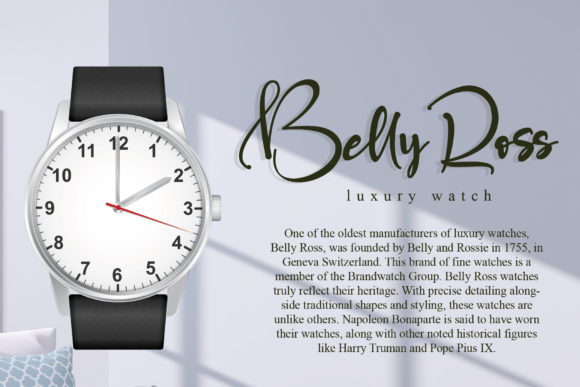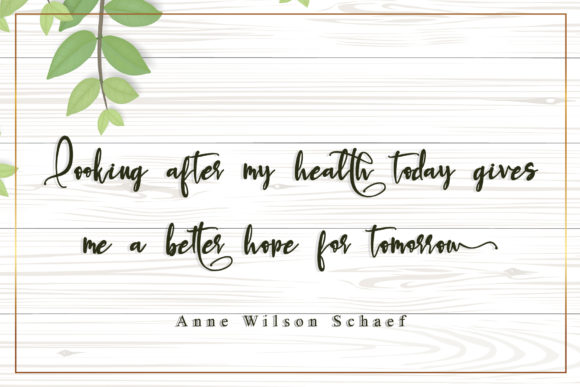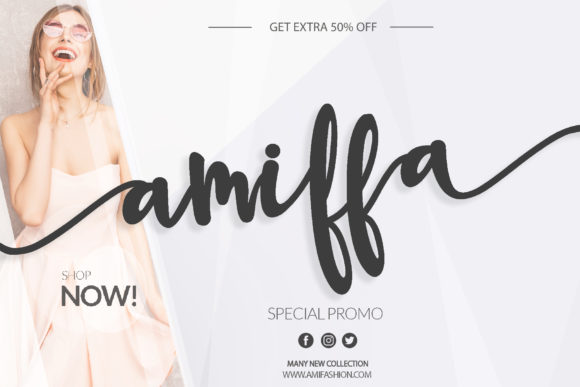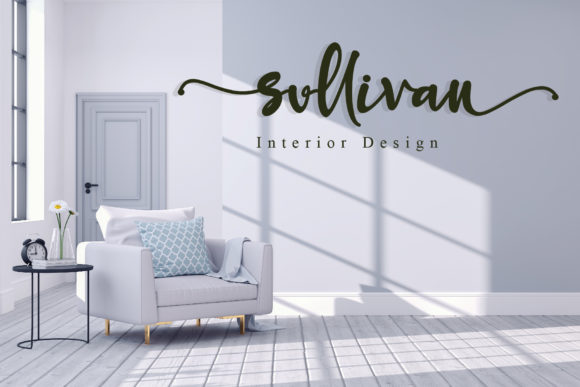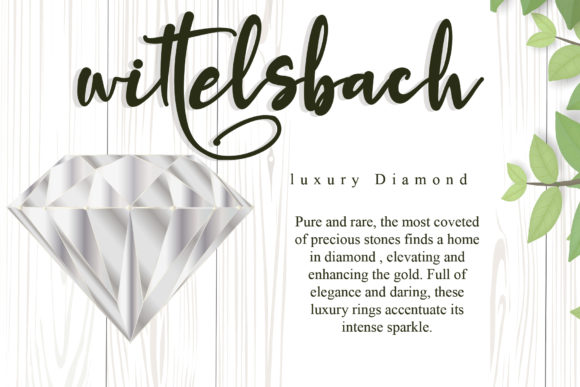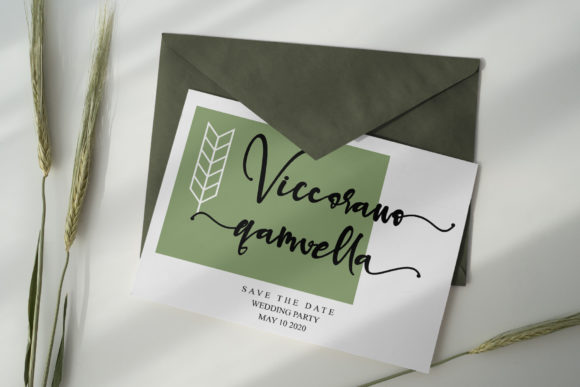
Unlock the Artistic Potential of the Bethania Font
Do you ever find yourself stuck in a creative rut, yearning for the perfect font to breathe life into your next project? Perhaps you’ve been searching for a font that exudes elegance and sophistication, yet still manages to convey a sense of relaxed charm. If so, then you’re in luck, because we’re about to introduce you to the enchanting Bethania Font.
Bethania Font is a beautifully crafted, handwritten font designed to transport your artwork to new heights. Its authentic feel and stunning alternates make it the perfect choice for designers seeking to add a touch of whimsy and personality to their creations. With its PUA encoding, accessing all the glyphs and swashes is a breeze, allowing you to unleash your full creative potential. Whether you’re a seasoned pro or just starting out, the Bethania Font is an invaluable tool in your design arsenal.
Bethania Font Key Features
- Unique Characteristics: Bethania Font features a unique blend of modern and traditional design elements, with clean lines, elegant curves, and a touch of whimsy.
Bethania Font Review
Overall, I found the Bethania font to be a beautiful and elegant script font. ✨ It’s perfect for adding a touch of sophistication to any design project. The flowing connections and soft curves make it a great choice for invitations, wedding stationery, and other romantic themes.
- ✨ Elegant and sophisticated design
- ✨ Perfect for romantic and vintage themes
- ✨ Beautiful flowing connections
- ✨ Soft and delicate curves
However, I did encounter a few limitations:
- ⚠️ Limited font sizes: I found that the font can become difficult to read at smaller sizes, which may limit its use in certain applications.
- ⚠️ Limited language support: As a script font, Bethania may not be suitable for languages that require a high level of precision and accuracy, such as technical or mathematical texts.
Overall, I would recommend the Bethania font for designers looking to add a touch of elegance and sophistication to their designs. While it may have some limitations, its beauty and versatility make it a great choice for the right projects.
Getting the Most Out of Bethania Font
To get the most out of Bethania Font, use it for:
- Home decor and furniture labels
Bethania Font is commonly used for:
- Handwritten-style typography
- Whimsical and elegant designs
- Adding a touch of sophistication to any project
Alternatives to Bethania Font for Designers
Lato is a popular sans-serif font that is highly versatile and suitable for various design projects, including logos, headings, and body text. It has a clean and modern look that is easy to read, making it an excellent choice for digital products, websites, and mobile apps. Lato is similar to Bethania Font in terms of its clean and minimalist design, but it has a more modern and sleek feel to it.
Merriweather is a classic serif font that exudes elegance and sophistication. It is perfect for use in print materials, such as brochures, magazines, and books, where a traditional and refined look is desired. Merriweather is more formal than Bethania Font and has a more traditional feel to it, making it an excellent choice for projects that require a touch of class and sophistication.